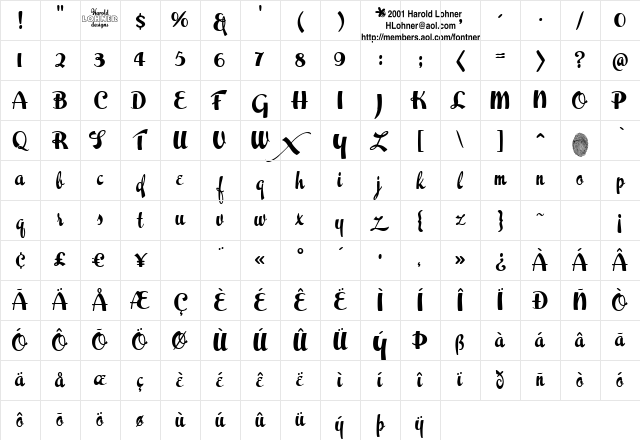
Easter Parade Regular
Copyright: Easter Parade computer font v1.0 ©2001 Harold Lohner "  " http://members.aol.com Based on an unidentified "Modern Brush Script"
Design Context for Easter Parade
Easter Parade is a composed and adaptable typeface that performs quietly and consistently across a wide range of design contexts.